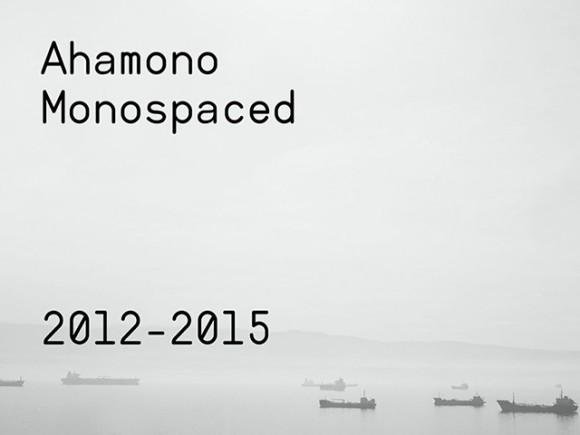
Introducing you to the absolutely beautiful free ahamono monospaced font. This is a downloadable free typeface file brought to you by Freebies Bug. Showcase your designs like a graphic design pro by adding a new touch with this beautiful font.